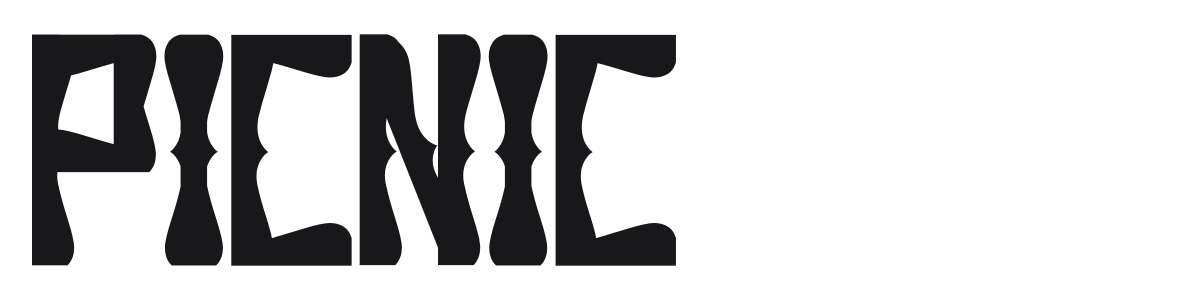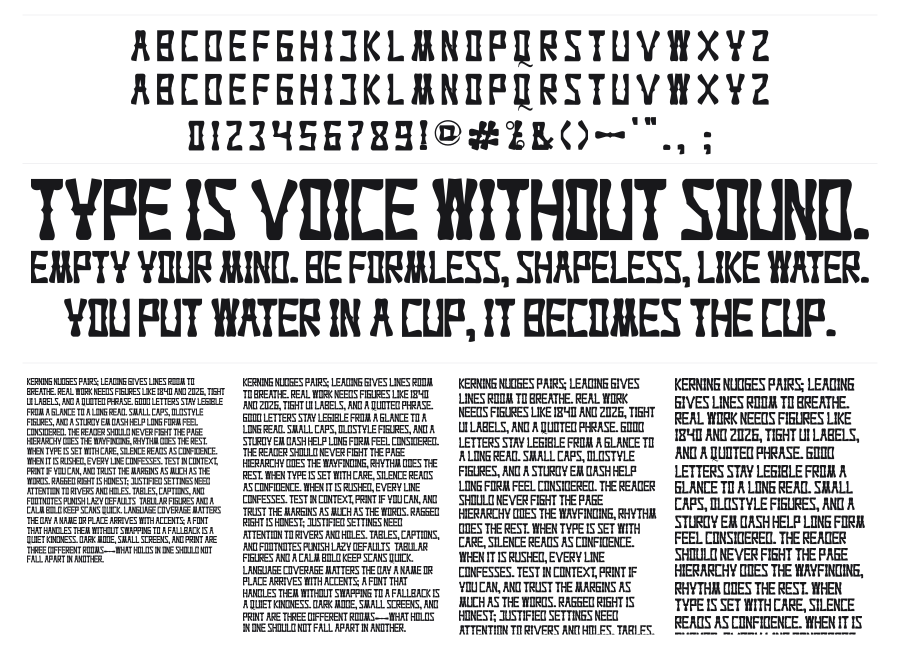
Picnic
Picnic is a bold, heavy display font soaked in 1960s–70s psychedelic poster energy. Deep concave notches carved into stroke junctions give each character a melting, funky silhouette that reads as both chunky and fluid. It brings instant retro personality to posters, album art, festival branding, and packaging.